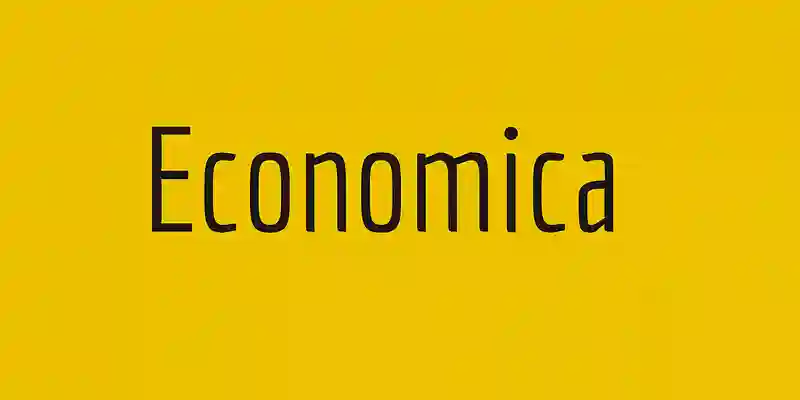
The EcoNomico Font is perfectly designed for numerous sustainable and economic applications including green business branding, environmental consulting communications, sustainable product packaging, eco-friendly marketing campaigns, renewable energy presentations, financial sustainability reports, conservation organization materials, organic product labeling, environmental education resources, and responsible investment promotions. Its conscious character makes it particularly effective for environmental organizations, sustainable businesses, green technology companies, and socially responsible brands seeking to convey environmental stewardship, economic responsibility, and sustainable innovation in their visual communications and brand presentations.
What makes the EcoNomico Font incredibly exciting is its unique fusion of environmental consciousness and economic pragmatism combined with contemporary design sophistication. This innovative typeface captures the essence of sustainable business practices while incorporating modern typographic principles that ensure optimal performance across today's environmentally conscious market landscape. The font's captivating character emerges from its clean, efficient letterforms, balanced proportions, and carefully crafted details that evoke a sense of responsible innovation and sustainable progress, making it perfect for brands seeking to establish credibility in the green economy and appeal to environmentally aware consumers.
The EcoNomico Font family encompasses multiple weights and styles designed to provide comprehensive sustainable branding solutions. The collection typically includes light, regular, medium, bold, and black weights, with many versions offering eco-friendly italic variants that enhance the font's environmental appeal and responsible character. Some editions may include nature-inspired alternates, sustainability symbols, and green design elements that provide additional options for creating unique typographic treatments and environmentally focused brand applications.
Sustainability professionals and green marketing specialists consistently choose the EcoNomico Font Free Download for its exceptional environmental authenticity and economic sensibility. The font features carefully engineered spacing and kerning that ensures optimal readability across various sustainable applications, from detailed environmental reports to large-scale green advertising campaigns. Its robust construction maintains its responsible character in both digital and print environments, while the comprehensive character set includes uppercase and lowercase letters, numerals, punctuation marks, and special symbols, along with extensive language support for international environmental projects and global sustainability communications.
The EcoNomico Font represents the evolution of sustainable typography, combining environmental consciousness with economic viability. Its responsible aesthetic demonstrates commitment to sustainability while maintaining the professionalism required for serious business applications. The font's remarkable adaptability allows it to work effectively in both grassroots environmental contexts and corporate sustainability presentations, ensuring consistent environmental impact across green websites, sustainability reports, eco-friendly packaging, and responsible business communications.
Embrace sustainable design and environmental responsibility with the conscious innovation and economic wisdom of the EcoNomico Font, the ultimate choice for green typography excellence.